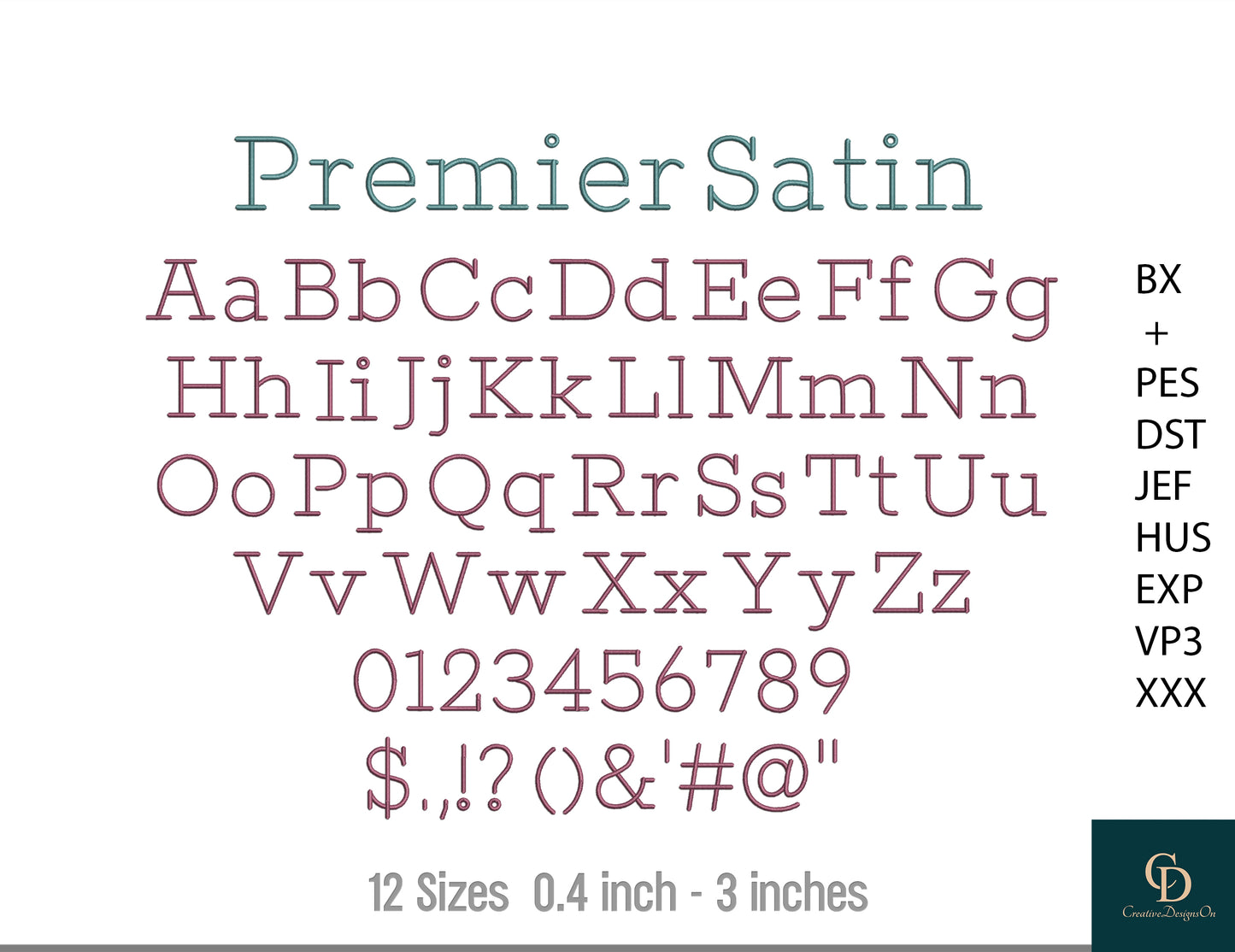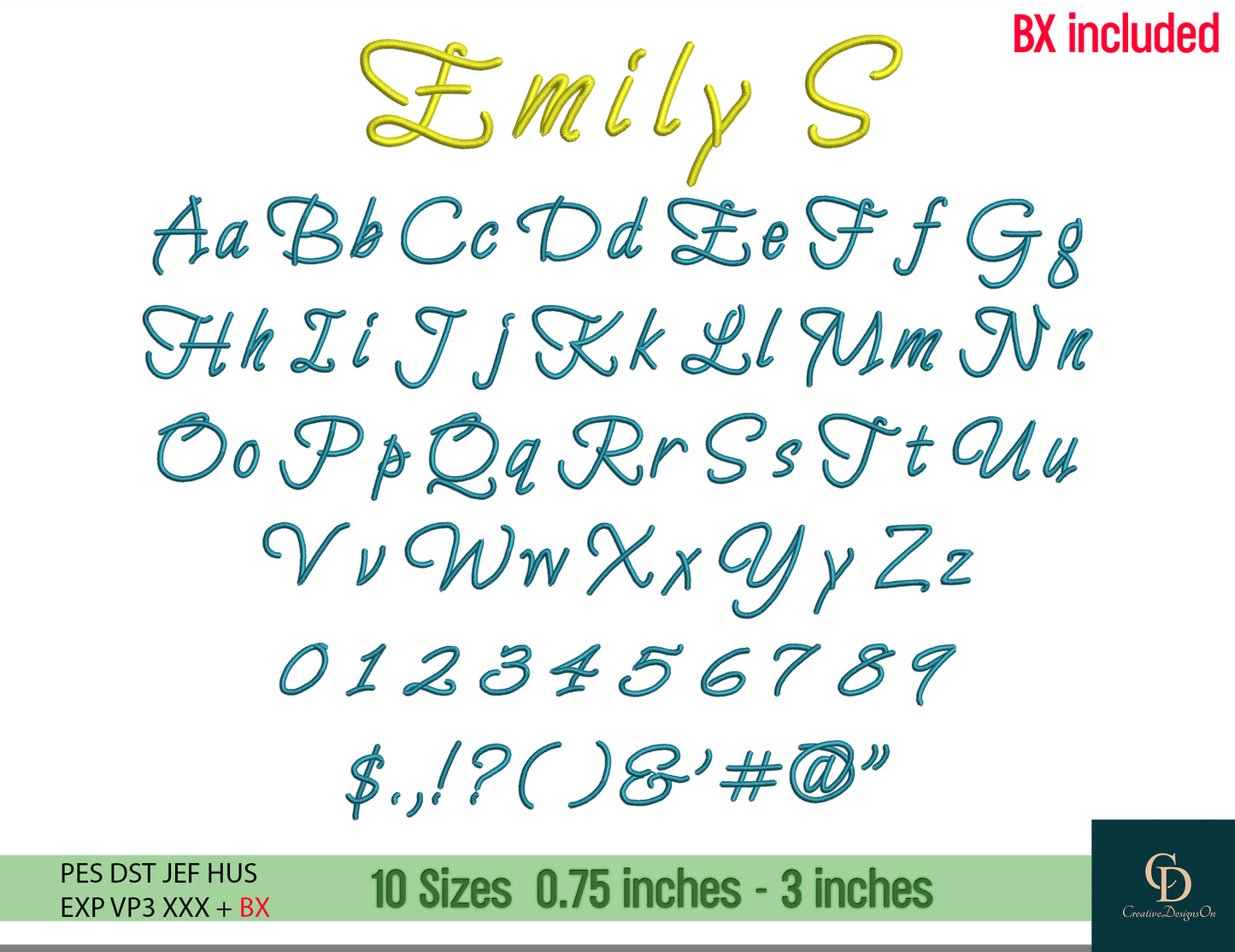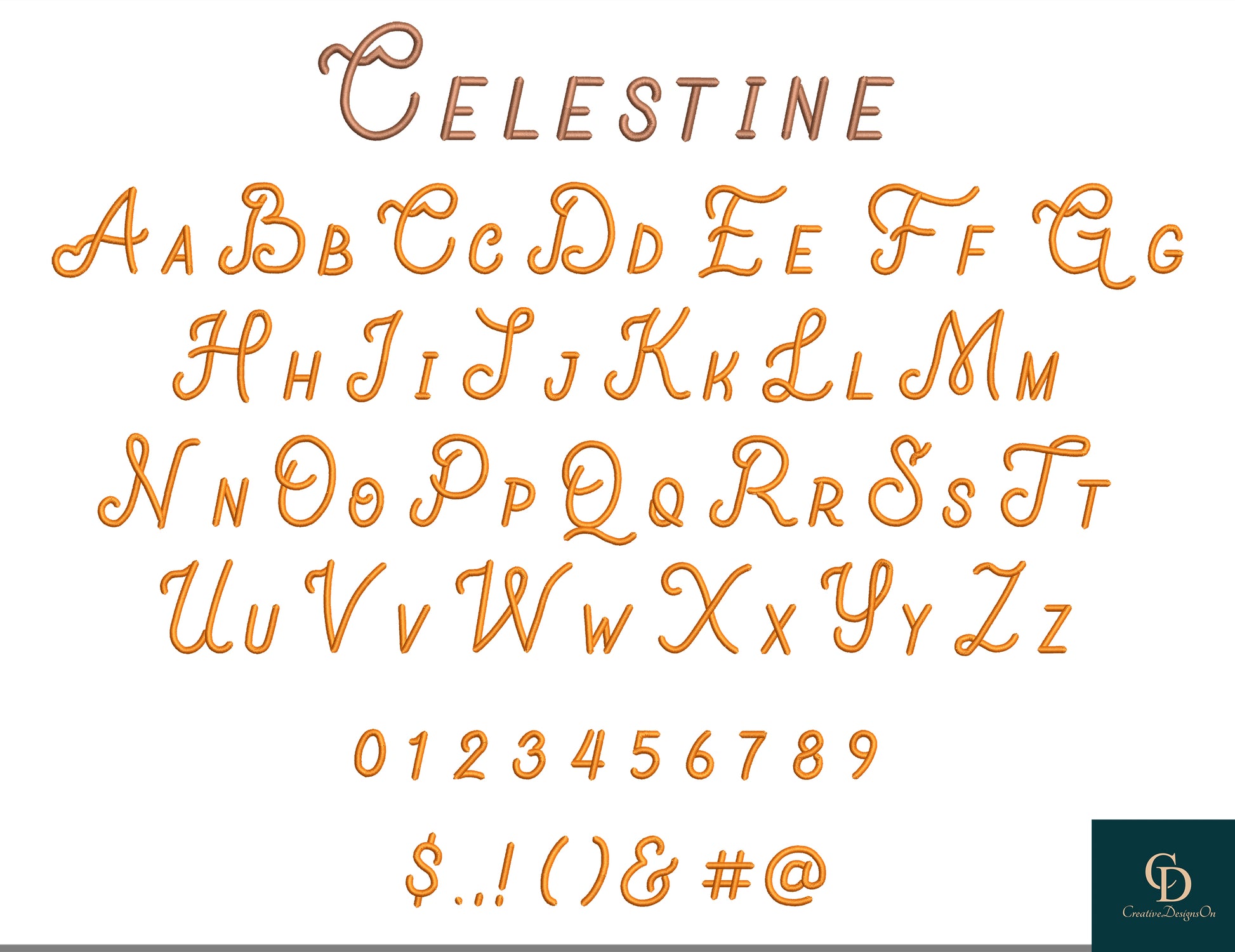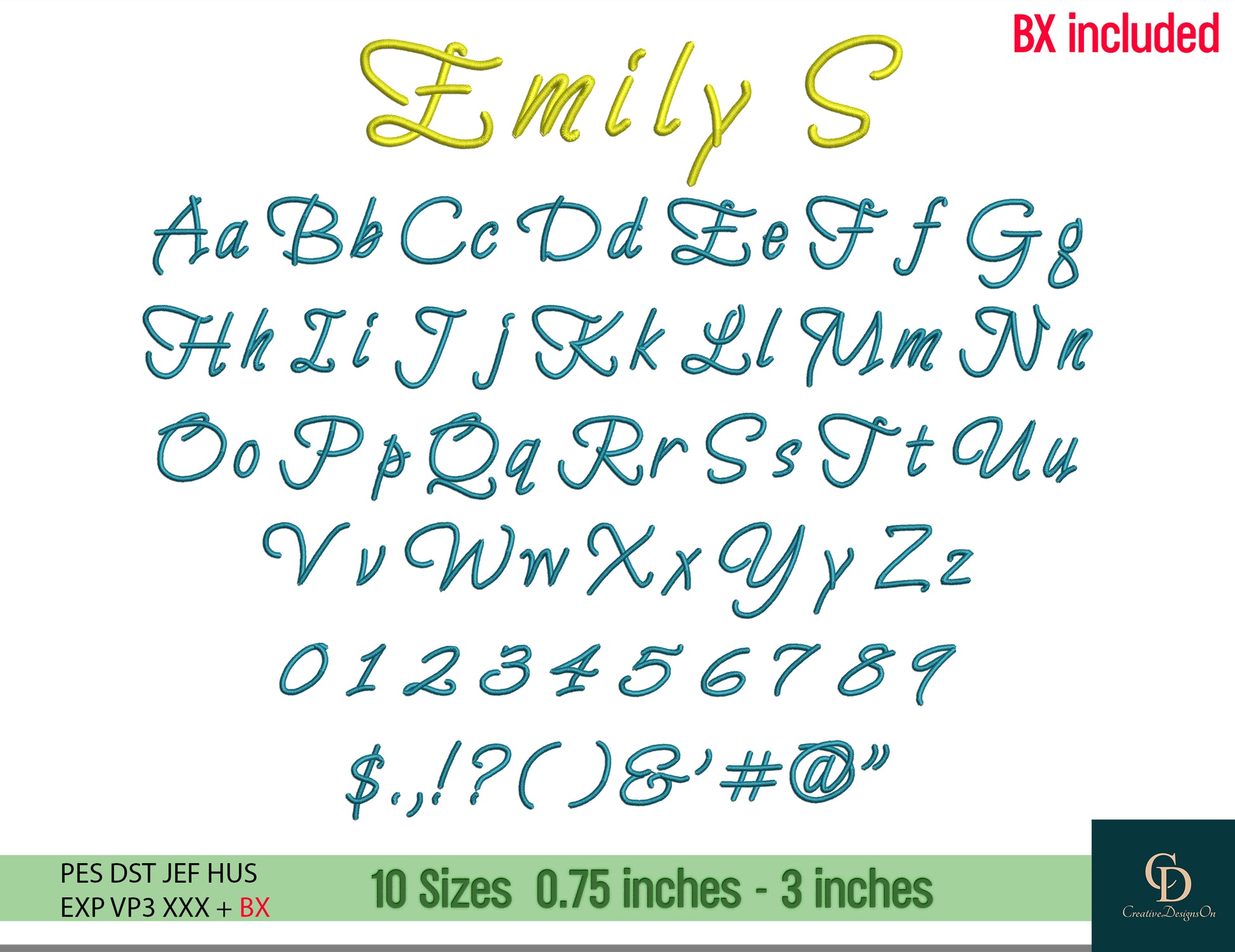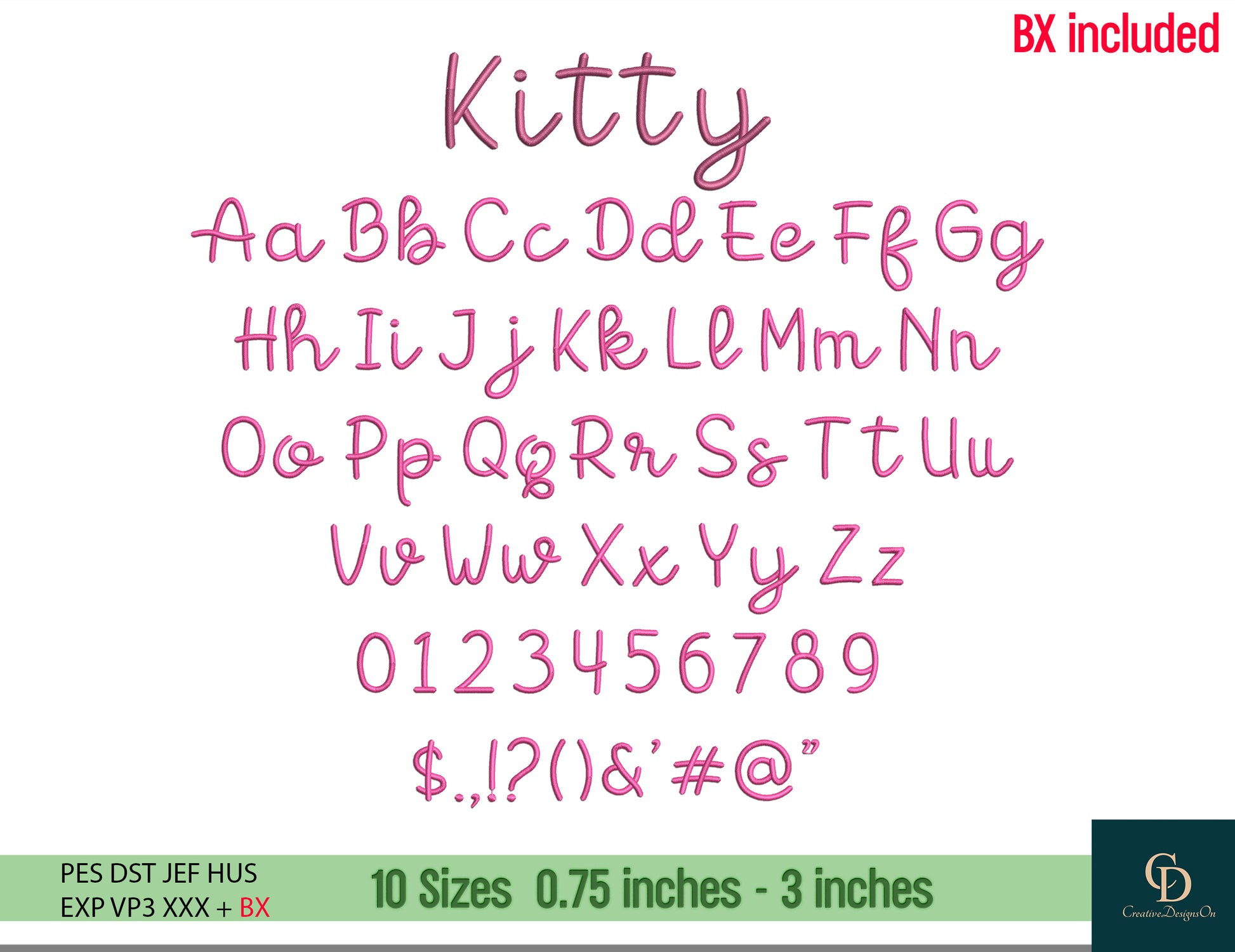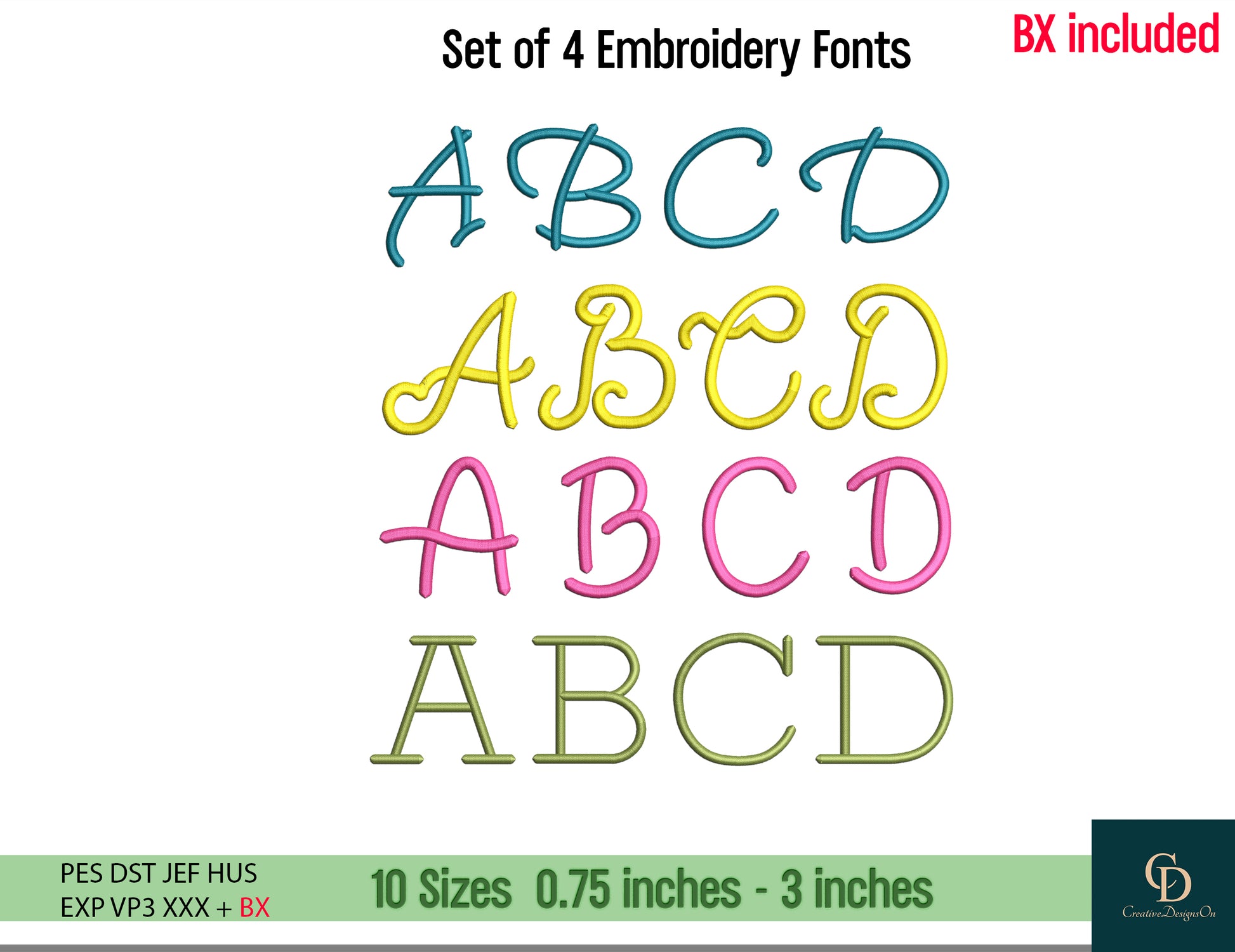
4 Machine Embroidery Fonts, BX, PES, DST Cursive, Monogram Script Alphabet, Satin Font, Boho Signature Font, 10 Sizes
Set of 4 embroidery fonts, BX Cursive Machine Embroidery Font, Monogram Script Alphabet, Satin Stitch Font, PES, DST, Boho Signature Font, 10 Sizes, Instant Download, Native BX Format for Embrilliance included
4 Satin Stitches MODERN machine embroidery alphabet font sets
Upper case and Down case letters plus Digits and punctuation marks in multiple formats for each font
Beautiful script fonts! Perfect for wedding gifts.
Elegant cursive letters. Use these constantly.
Best cursive fonts I have found. So smooth!
Lovely script. A few letters needed tweaking.